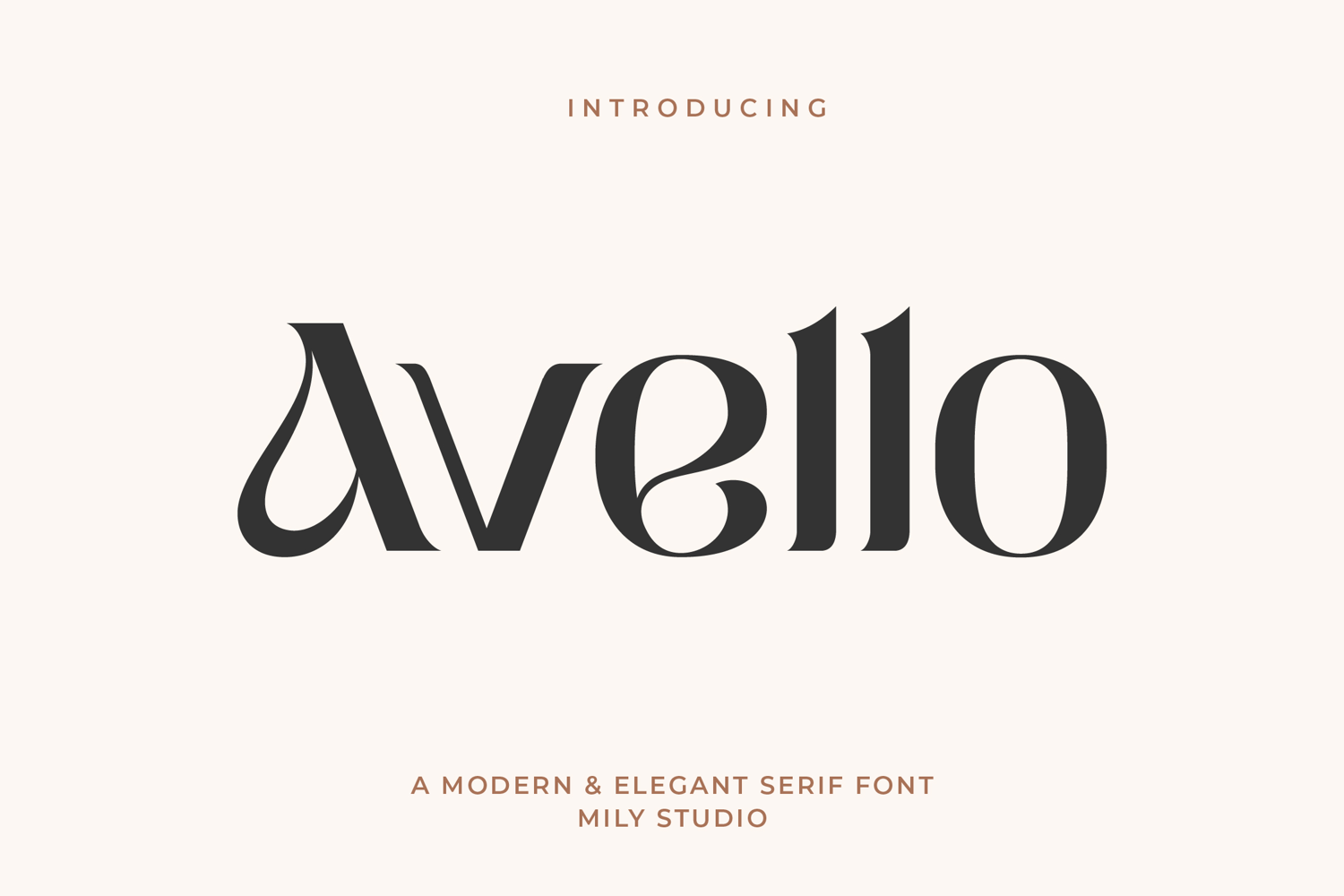
Avello - Elegant Serif
Avello — The Epitome of Masculine Elegance
Avello is a sophisticated serif typeface meticulously crafted for those who demand authority and refinement. With its high-contrast structure and razor-sharp serifs, Avello redefines the modern classic aesthetic, making it an ideal choice for high-end projects.
Whether you’re designing for a luxury automotive brand, a premium fragrance, or an elite editorial spread, Avello brings an air of "quiet luxury" that is both commanding and sophisticated.
Main Features:
• High Contrast & Sharp Serifs
• Perfect for Branding, Logos, and Packaging
Elevate your design to a new level of class with Avello.